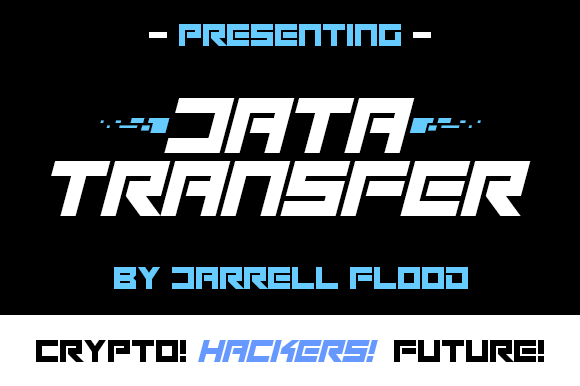
Introducing Data Transfer: The Font That Emulates Technology's Evolution
Step into the realm of futuristic typography with Data Transfer, a groundbreaking display font that captures the essence of technological advancement. Its sharp angles and sleek curves evoke the intricate circuitry and digital landscapes of our ever-evolving world.
With Data Transfer, negative space becomes a canvas for your imagination. Its letterforms dance effortlessly, creating pockets of intrigue that draw the eye and ignite curiosity. Whether you're crafting interstellar stories, designing high-tech presentations, or seeking a cutting-edge aesthetic, this font is your digital paintbrush.
Each character in Data Transfer is a testament to the meticulous craftsmanship of its creator, Dadiomouse. The intricate details and harmonious proportions inspire awe and create a captivating visual experience.
This font is not just a collection of letters; it's a gateway to a world of boundless possibilities. Its slick, stylish, square style transports you to the frontiers of innovation, where imagination knows no bounds. Embrace the allure of Data Transfer and let your designs take flight.